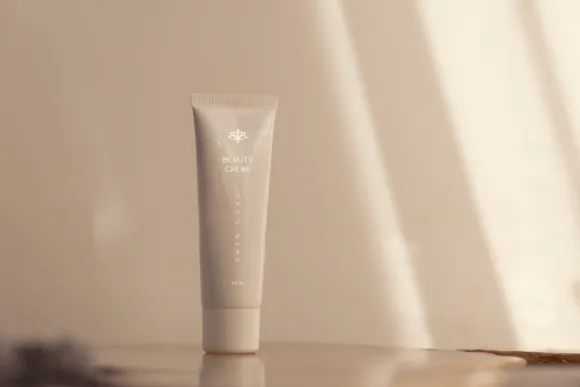
Moragon Font is an exquisite sans-serif text style family, intended to give greatest adaptability to an assortment of configuration projects.
Comprising of six varieties: Light, Light Italic, Ordinary, Italic, Striking, and Intense Italic, this text style gives the ideal answer for any typography need.